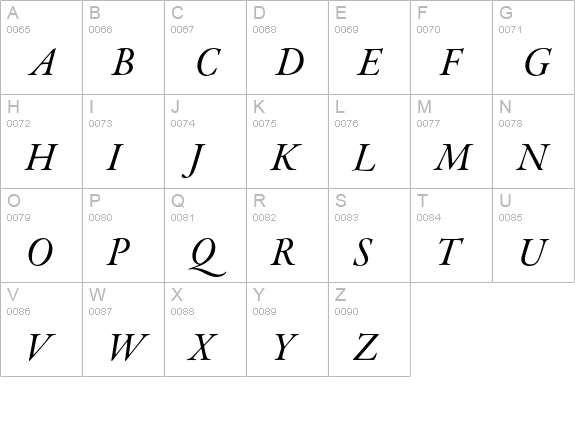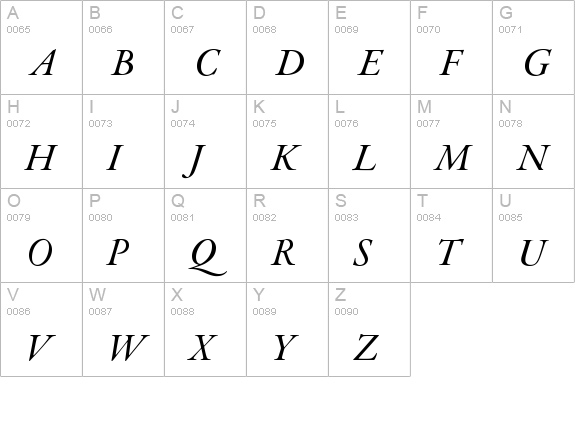
Garamond Premier Pro Medium Italic Subhead Font Details
Garamond Premier Pro Medium Italic Subhead is a balanced, medium-weight, italic variant in the Garamond typeface family \xE2\x80\x94 well suited to sub-headlines, navigation, and balanced editorial work.
Garamond Premier Pro Medium Italic Subhead font is a sophisticated and elegant typeface that exudes a sense of timeless beauty and refinement. Its subtle italic styling adds a touch of flair and sophistication, making it perfect for adding emphasis and hierarchy to your design projects. This versatile font is ideal for use in subheadings, captions, and other areas where a touch of elegance is desired. What sets Garamond Premier Pro Medium Italic Subhead font apart is not only its exquisite design but also the fact that it is freely available to download at FontsMarket.com. This means that you can easily access and use this premium font in your projects without any additional cost. Whether you're working on a print design, web project, or any other creative endeavor, Garamond Premier Pro Medium Italic Subhead font is sure to elevate your work with its classic charm and sophistication.